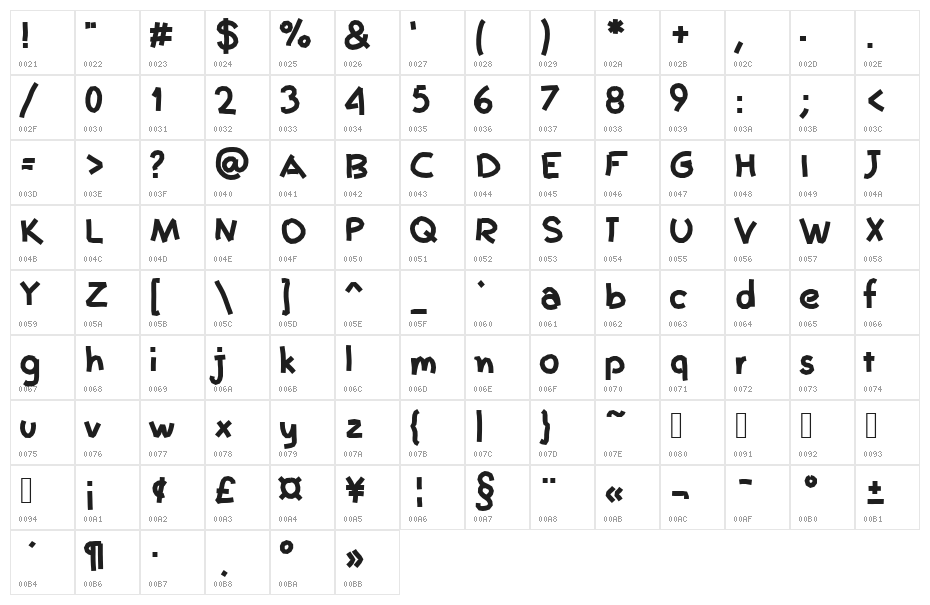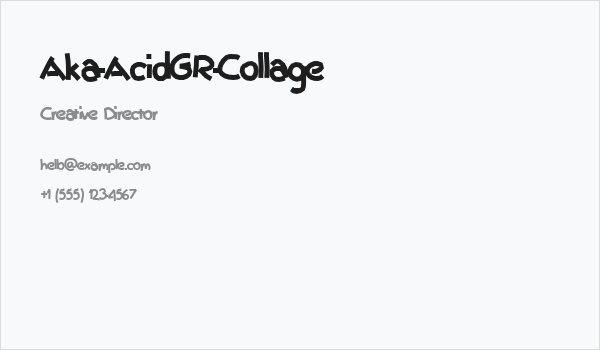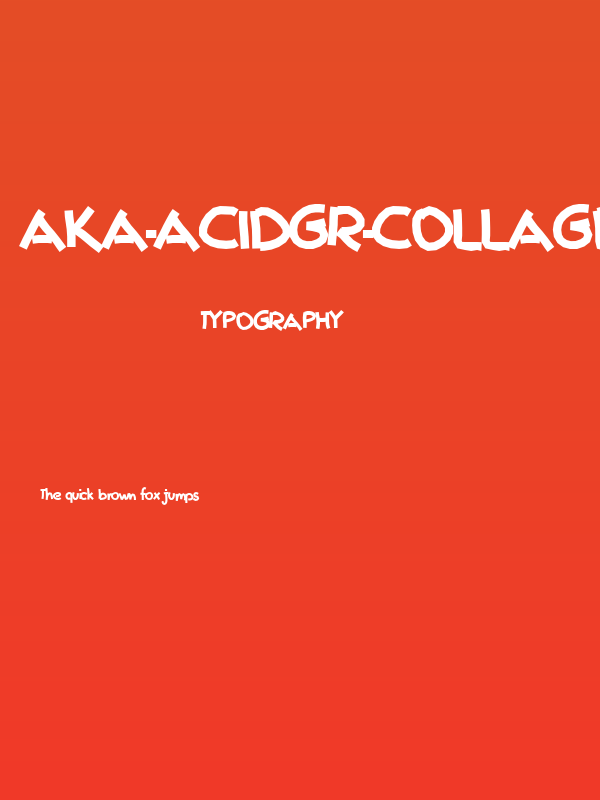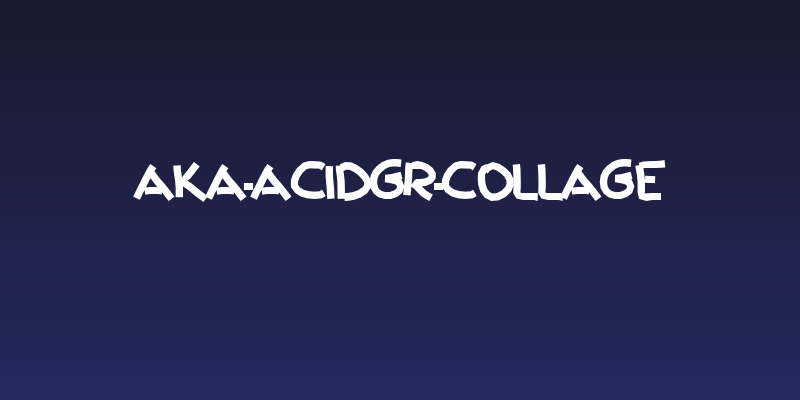
Aka-AcidGR-Collage Font
Aka-AcidGR-Collage Description
This font features a bold, playful style with a hand-drawn appearance. The characters are irregular and dynamic, giving a sense of movement and energy. The uppercase and lowercase letters maintain a consistent thickness, while the numbers and special characters follow the same lively design. The strokes are thick and uneven, adding to the casual and informal feel of the font. It is well-suited for projects that require a fun and engaging aesthetic, such as children's books, posters, or creative branding.
| Overall Style | Playful, Casual |
| Proposed Projects | Ideal for children's books, posters, creative branding, and playful designs. |